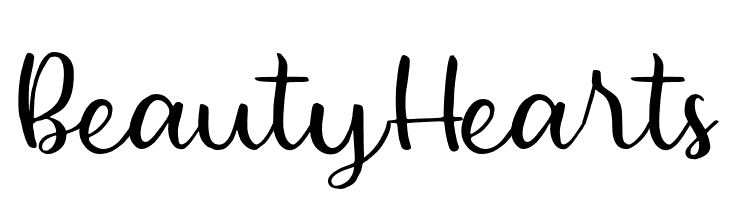
A bold, condensed font with a modern, geometric style.
A bold, condensed, and italicized font with a dynamic and modern style.
A bold, italic font with sharp, angular edges and a dynamic style.
A bold, geometric font with a modern and industrial aesthetic.
A bold, condensed font with a modern, geometric style.
A condensed, italicized font with a modern and dynamic style.
A pixelated, retro-style font with a blocky, geometric appearance.
A bold, dynamic font with a futuristic and modern style.
A playful, handwritten font with bold, fluid strokes and a whimsical style.
A bold, 3D italic font with a dynamic and edgy graffiti-like style.
A bold, 3D font with a playful and dynamic style.
A bold, distressed, and condensed font with a grungy, graffiti-like style.
A bold, distressed, and condensed italic font with a grunge texture.
A bold, distressed font with a grunge aesthetic and jagged edges.
A bold, textured, expanded italic font with a dynamic and distressed style.
A bold, distressed italic font with jagged edges and a dynamic slant.
A bold, distressed font with a rugged, grunge aesthetic.
A bold, edgy font with jagged, distressed strokes and a rebellious vibe.
A bold, brush-style font with dynamic and expressive strokes.
A bold, splattered font with a grunge-like, artistic style.
A bold, decorative font with pronounced serifs and a three-dimensional outline.
A whimsical and decorative font with elegant swirls and curls.
A decorative Blackletter font with intricate, medieval-inspired design.
A bold, high-contrast font with elongated, narrow letterforms.
A playful, casual handwritten font with uneven strokes and a friendly appearance.
A bold, distressed stencil font with a rugged, military-inspired aesthetic.